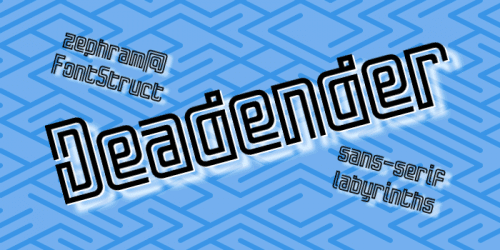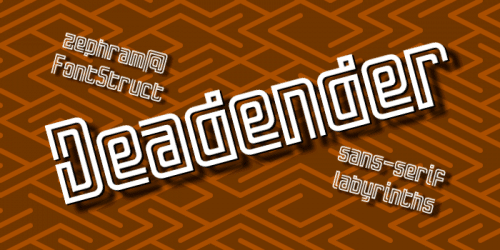
Deadender Font is A design based on loops and dead-ends. Supports several languages. You can use this font for personal purpose.
- Designer: Pixel Kitchen